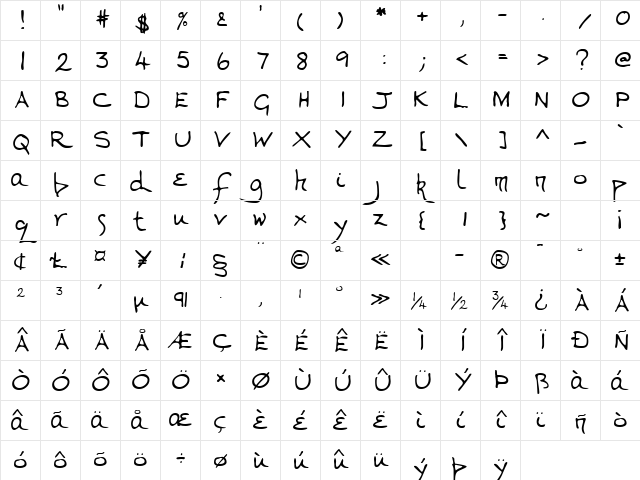
Soft Mad Children Regular
Complete Soft Mad Children Regular glyph index. Displaying only characters natively supported by Soft Mad Children Regular font.
Design Context for Soft Mad Children
Soft Mad Children has an approachable, lighthearted character - its loose, expressive forms are well-suited to children's content, casual branding, and fun-first design.
Font Pairing: Pairs well with a rounded or humanist sans for body copy, maintaining the friendly tone without relying on Soft Mad Children to carry extended reading.
Pro Tip: Use Soft Mad Children at larger display sizes where its expressive character can land. Pair with a clean, simple sans for body copy to maintain readability.